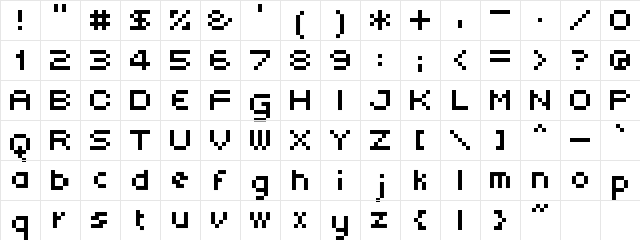
Subatomic Screen Screen
| Foundry | Subatomic |
| Designer | Subatomic |
Design Context for Subatomic Screen Typeface
Subatomic Screen offers clean, dependable letterforms without strong stylistic allegiance, making it a practical choice for designers who need flexibility.